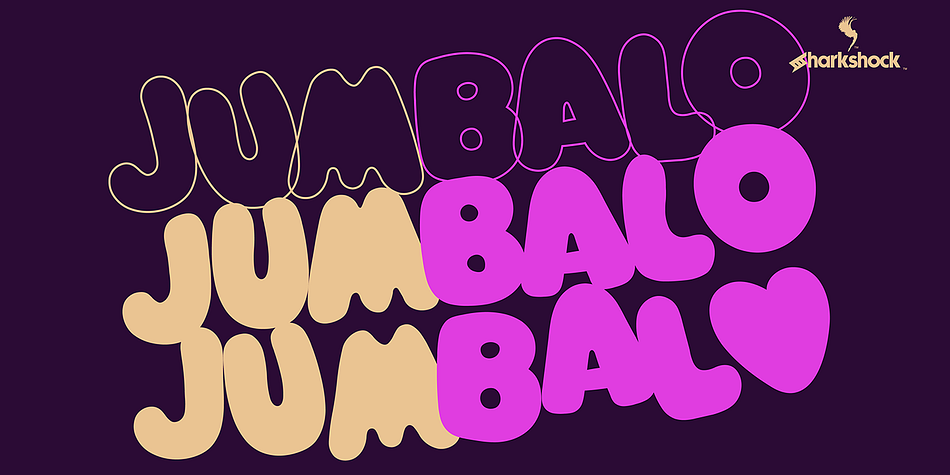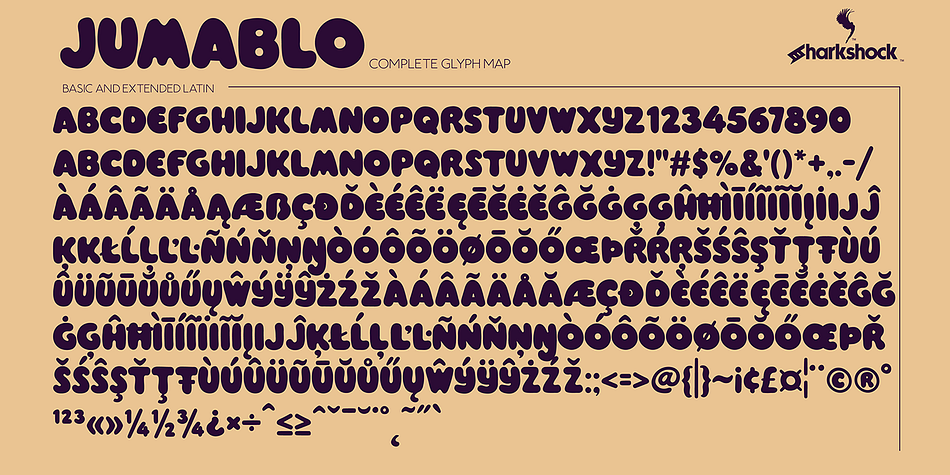
Designed by Dennis Ludlow, Jumbalo is a display and hand display font family. This typeface has two styles and was published by Sharkshock.
Jumbalo is a fun loving family suitable for a variety of purposes. This all caps display font is characterized by its loose, rounded features and balloon-like structure which gives it a retro vibe. The letters are closely spaced together to create a snug feel. Jumbalo would work well in a children’s book, retail packaging, or company logo. The complete family contains full and basic Latin, punctuation, European accents, kerning, and includes an outlined version.